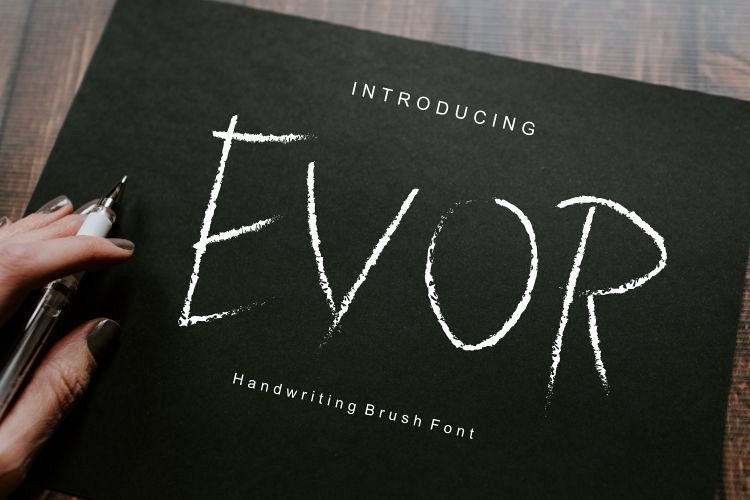
Evor
evor original handwritten font, can be used in various needs of the network such as screen printing of clothes, posters, films, magazines, banners, books etc.
Available in two bold and thin letters